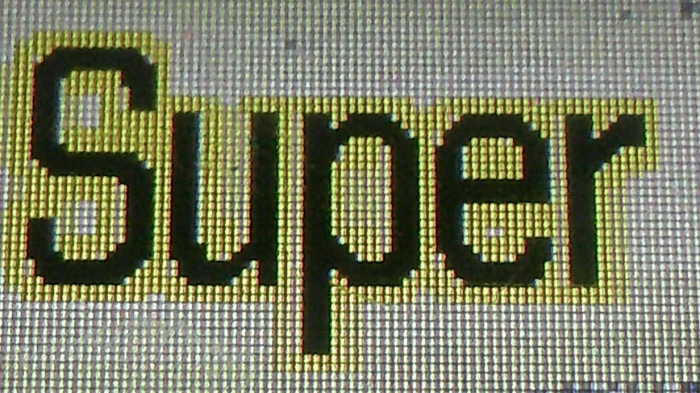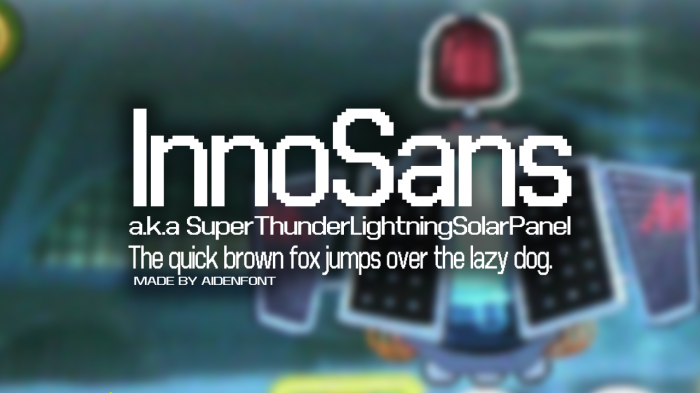
Mostly finished recreation from an InnoTab game I have.
(Originally titled "SuperThunderLightningSolarPanel".)
Specifically modeled after the InnoTab game "Teenage Mutant Ninja Turtles: Turtle Power!".
[I mainly recreated every letter of this style I could find and then optimised them to look better.]
original font for reference
sample :D